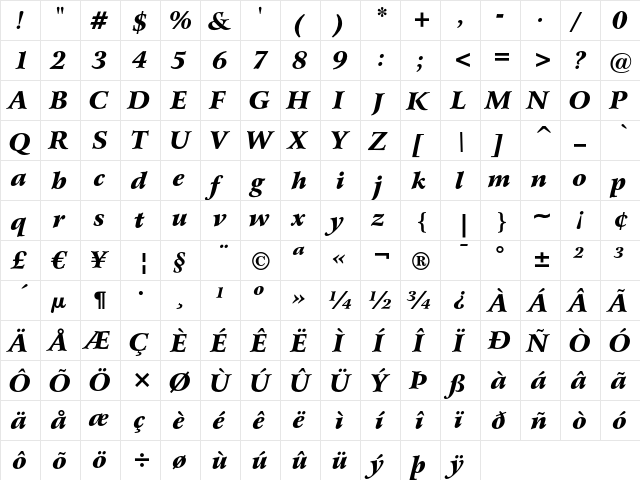
Bitstream Arrus Black Italic
Design Context for Bitstream Arrus Typeface
Bitstream Arrus is a composed and adaptable typeface that performs quietly and consistently across a wide range of design contexts. Its italic angle brings a sense of urgency and motion to the letterforms.
Pro Tip: Try Bitstream Arrus for annotation and caption copy alongside an upright companion — the contrast in angle creates a dynamic but ordered typographic system.